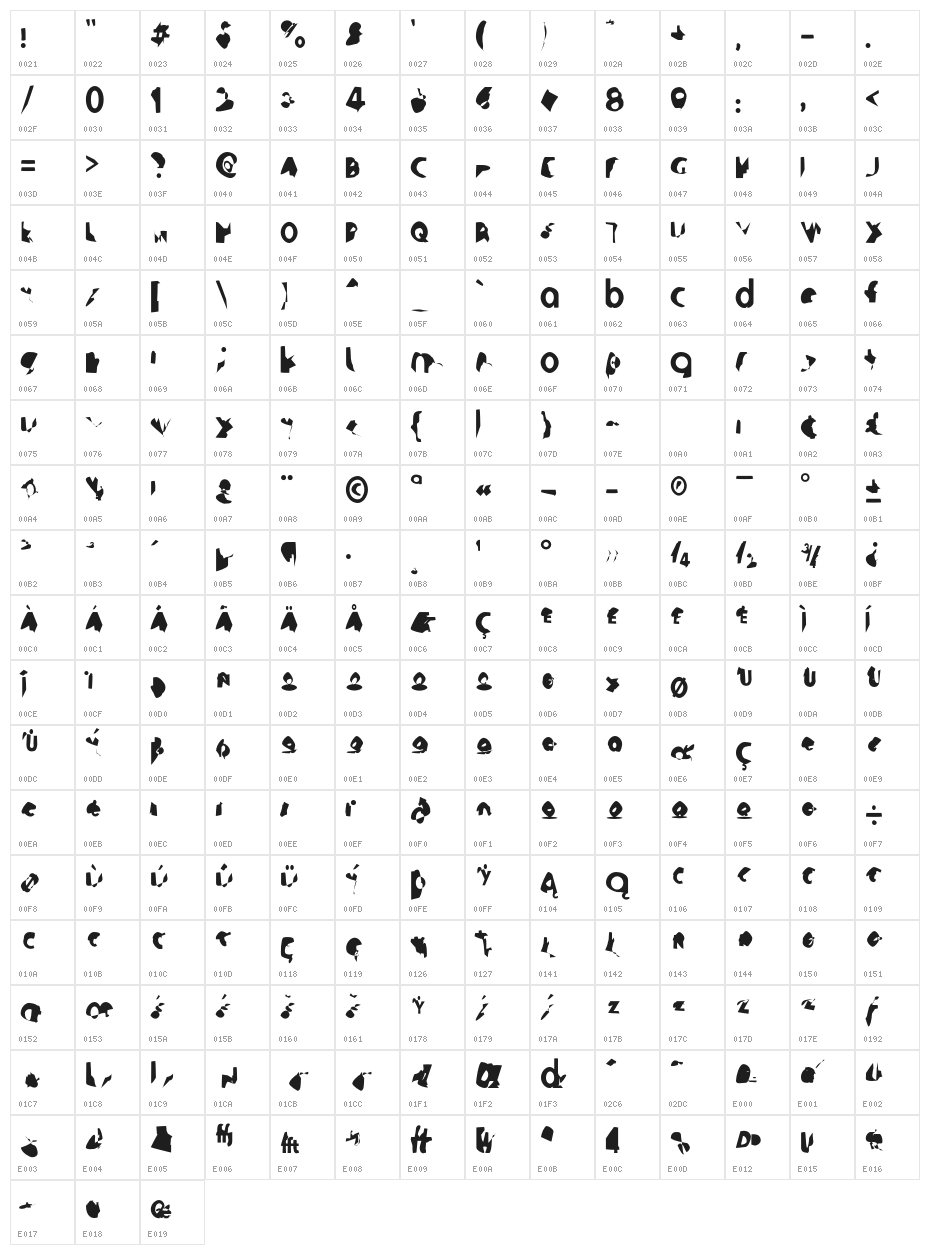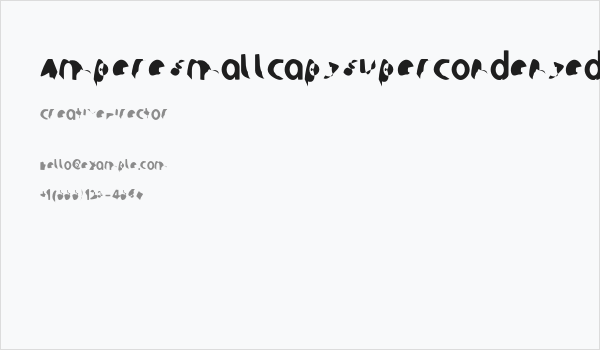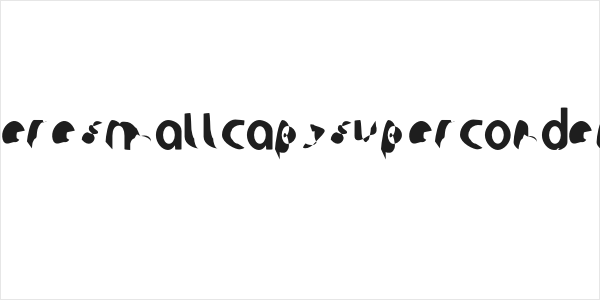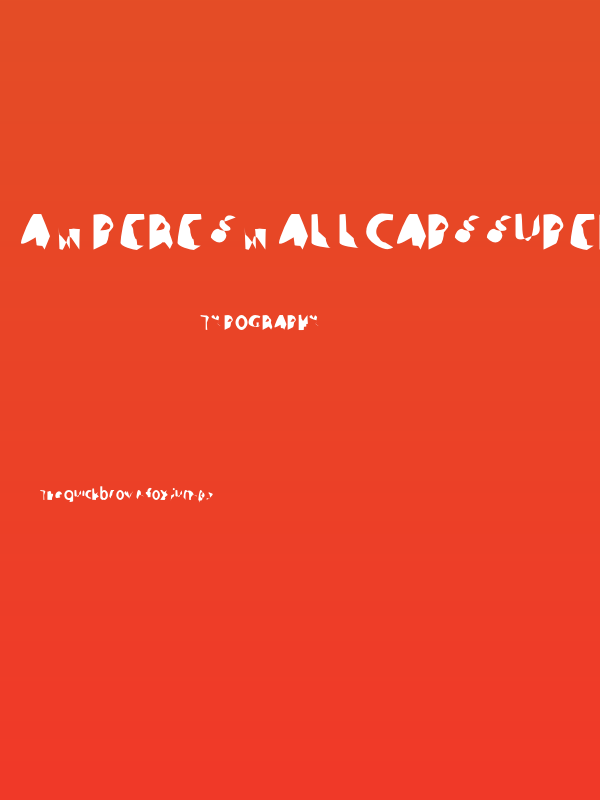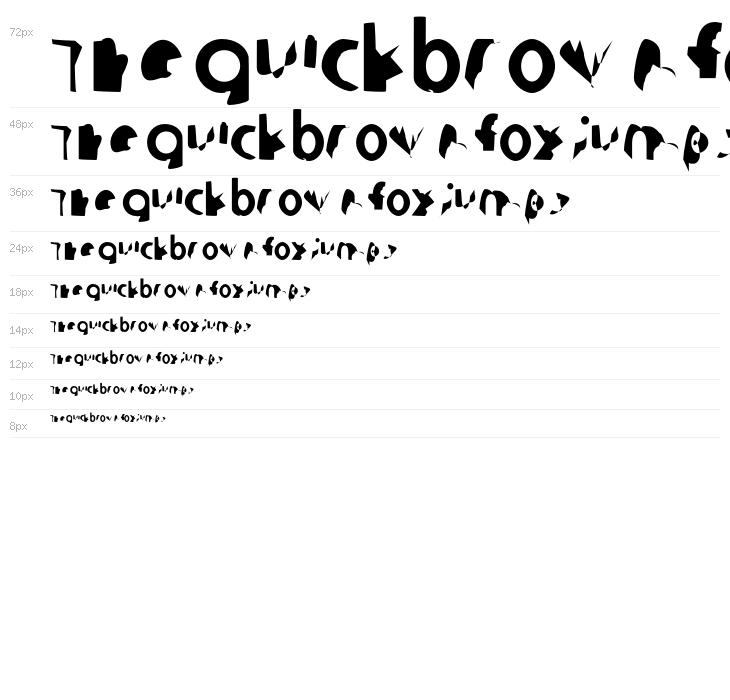
Ampere SmallCaps SuperCondensed Font
Ampere SmallCaps SuperCondensed Description
This font features a highly stylized and abstract design, with each character appearing as if it has been cut or fragmented. The uppercase and lowercase letters, along with numbers and special characters, are presented in a super condensed format, giving them a unique, artistic flair. The bold strokes and irregular shapes create a sense of movement and energy, making it stand out as a decorative or display font. The characters are tightly spaced, enhancing the condensed appearance and adding to the overall dynamic style. This font is not suitable for body text due to its complex and decorative nature, but it can be effectively used in creative projects where a bold statement is needed.
| Overall Style | Modern, Artistic |
| Proposed Projects | Ideal for artistic posters, album covers, branding for edgy or modern products, and any project requiring a bold, unique visual impact. |